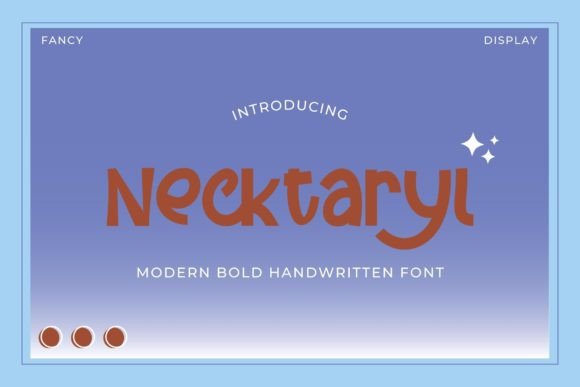
Unveil the Allure of Necktaryl: A Stroke of Enchantment for Your Creative Expressions
Immerse yourself in the world of Necktaryl, a captivating script font family that exudes elegance and charm. With its modern bold handwritten style, Necktaryl is not just a font; it's an artistic journey that transforms your words into exquisite creations.
Picture this: Your wedding invitations adorned with Necktaryl's graceful strokes, carrying the promise of love in every letter. Or envision your branding materials imbued with a touch of sophistication, leaving a lasting impression on your clients. From business cards that command attention to quotes that inspire, Necktaryl elevates your designs to new heights of beauty.
But Necktaryl's versatility extends beyond formal occasions. Its enchanting aura brings life to posters, social media graphics, and even personal notes. Let your creativity flow freely as you explore the endless possibilities that await with Necktaryl.
Beyond its captivating aesthetics, Necktaryl is a font of remarkable functionality. Its Stylistic Sets, Stylistic Alternates, Contextual Alternates, SWASH, and Ligature features unlock a world of customization, allowing you to tailor your designs to perfection. Unleash your creativity with Open Type savvy programs like Adobe Illustrator, Adobe InDesign, Adobe Photoshop Corel Draw X version, and Microsoft Word.
To further enhance your design experience, Necktaryl is equipped with PUA unicode (specially coded fonts). This ingenious feature ensures effortless access to all alternate characters, empowering you to infuse your creations with an unparalleled level of intricacy and elegance.
As you embark on your creative journey with Necktaryl, you'll discover a wealth of opportunities to showcase your unique style. Its versatility and charm make it the perfect companion for any project, enabling you to communicate your message with an artistry that resonates with your audience.
So, dive into the world of Necktaryl and let your imagination soar. Allow its graceful strokes to captivate your audience and create designs that leave an enduring impression. Embrace the beauty of Necktaryl and transform your creative visions into masterpieces.